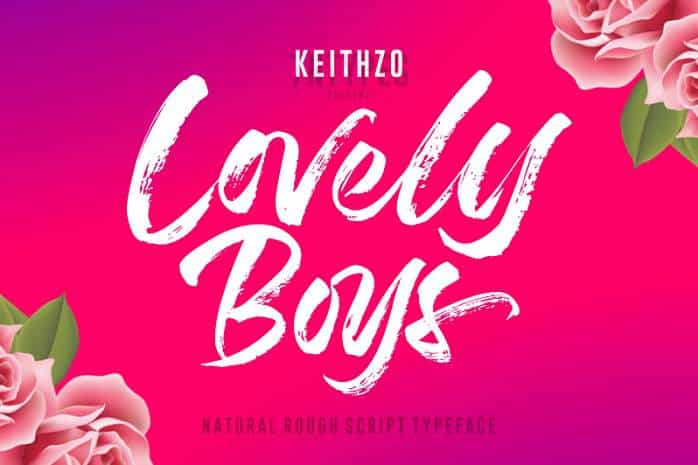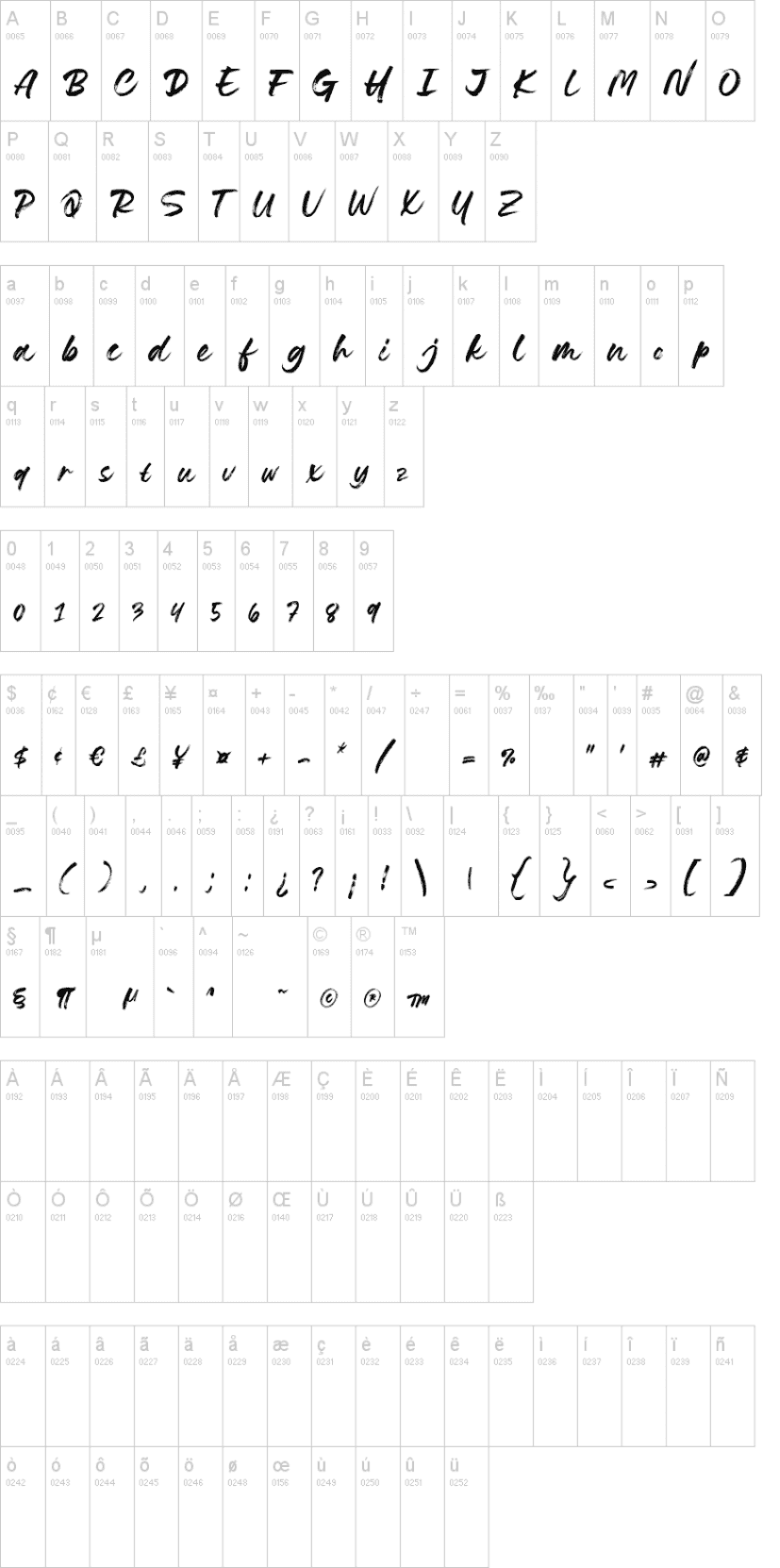
Lovely Boys is a brush-type font that has been designed by 7NTypes and is distributed as a free download and you may use the font for personal purposes. Some special characters are also included in the free version of the font with all uppercase and lowercase letters.